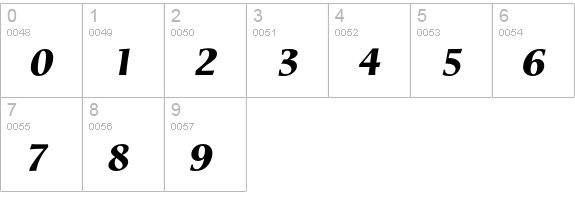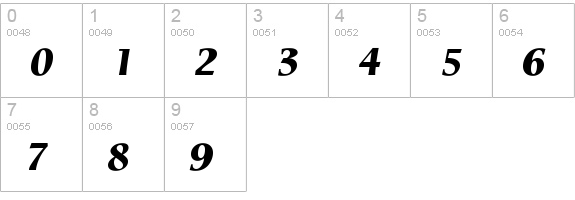
SierraEF-BoldItalic Font Details
SierraEF-BoldItalic is a visually captivating and versatile font that combines the boldness and elegance of SierraEF with a touch of italic flair. Designed to make a powerful statement, this font effortlessly grabs attention and adds a touch of sophistication to any project. With its strikingly bold strokes and sleek italics, SierraEF-BoldItalic exudes confidence and strength, making it ideal for headlines, logos, and branding materials. Whether you're designing a magazine cover, a website banner, or a poster for a special event, this font will ensure your message stands out in style. One of the greatest features of SierraEF-BoldItalic is that it is free. Yes, you read that right! This stunning font is freely available to download at FontsMarket.com, a reputable online platform for high-quality fonts. You no longer need to worry about breaking the bank to access top-notch fonts, as SierraEF-BoldItalic offers you the perfect combination of quality and affordability. This font is crafted with meticulous attention to detail, ensuring that each character is well-balanced and visually pleasing. The bold and italic styles harmoniously blend together, creating a seamless and captivating visual experience. The versatility of SierraEF-BoldItalic allows it to be used across a wide range of design projects, from elegant wedding invitations to modern business presentations. SierraEF-BoldItalic is also highly legible, ensuring that your audience can easily read and understand your message. The well-defined letterforms and clear spacing make this font a reliable choice for both print and digital media. Whether you're a professional designer or a creative enthusiast, SierraEF-BoldItalic will become an essential tool in your font collection. Its timeless appeal and unique combination of boldness and italic style will elevate your designs and leave a lasting impression. So why wait? Don't miss out on the opportunity to enhance your designs with this stunning font. Download SierraEF-BoldItalic for free at FontsMarket.com and unlock a world of design possibilities.